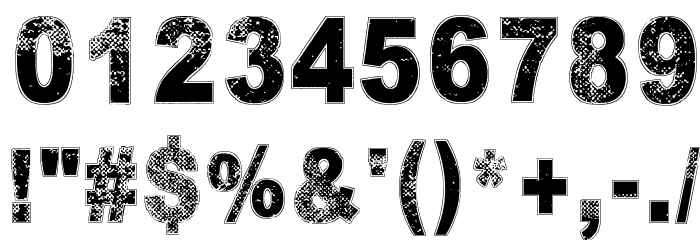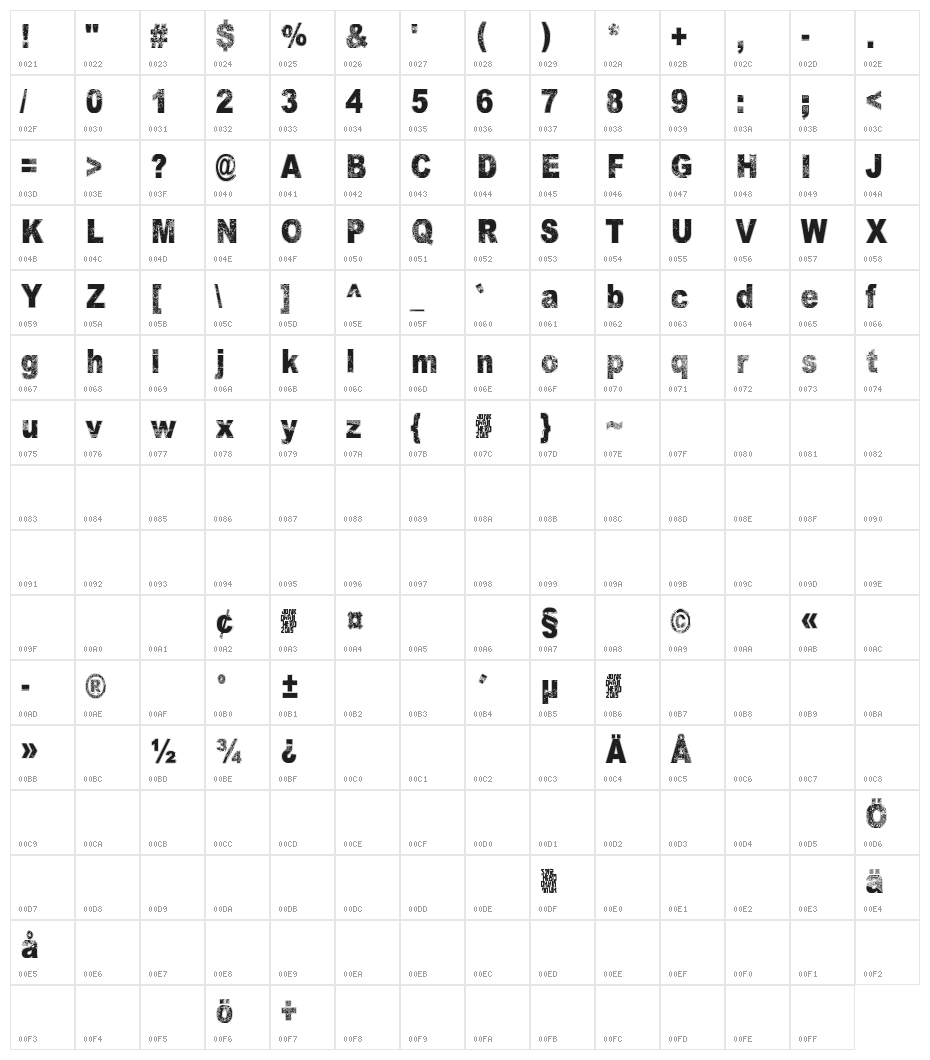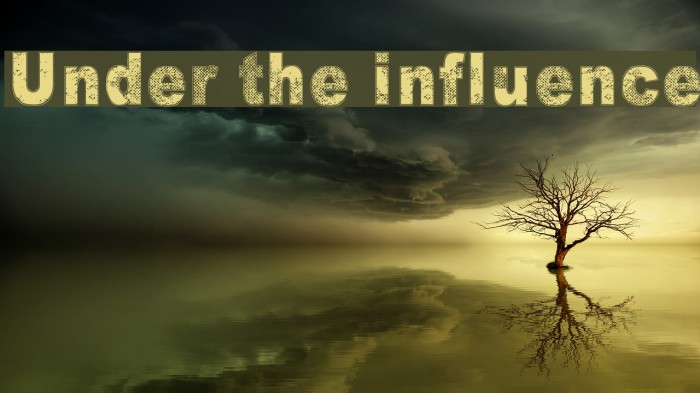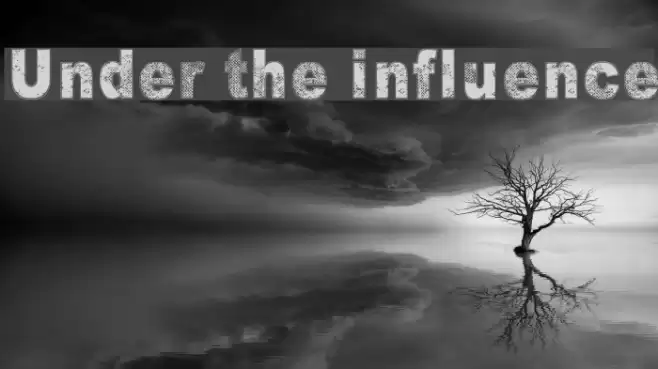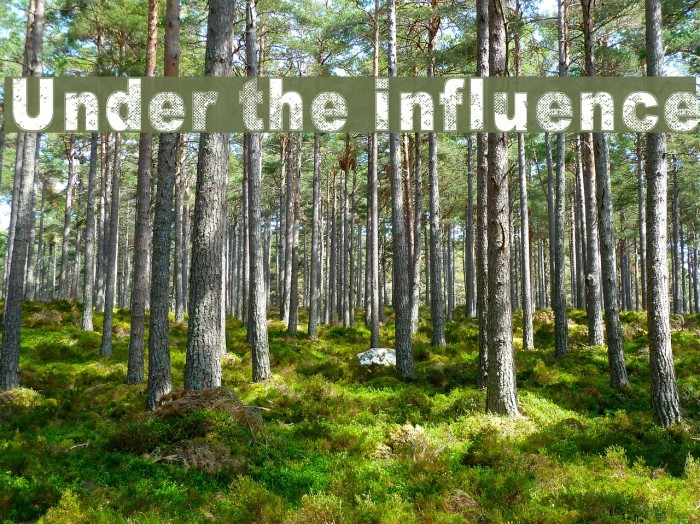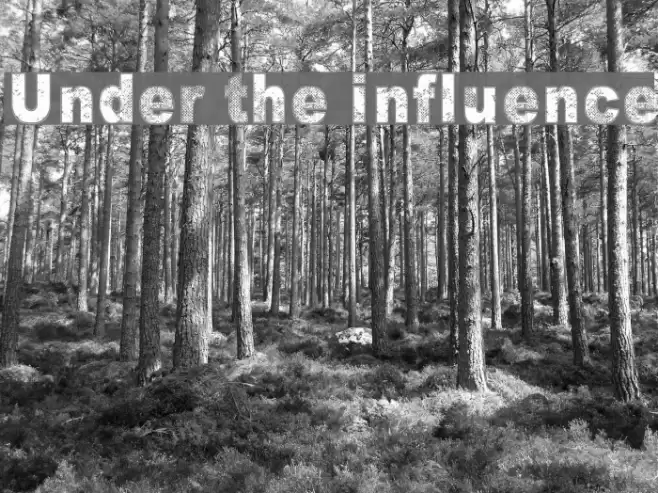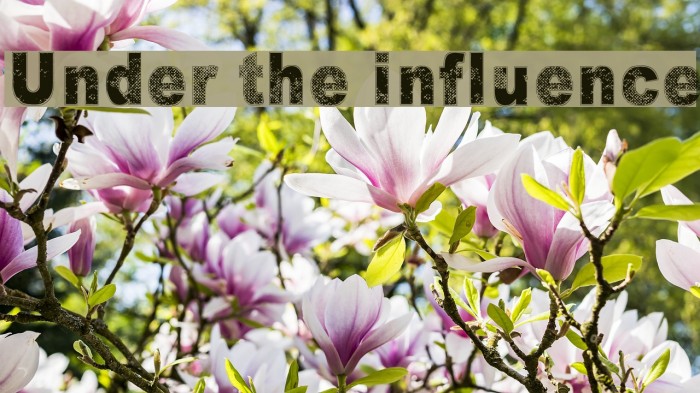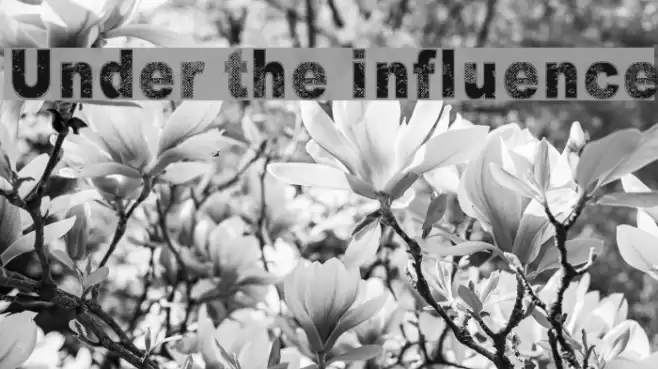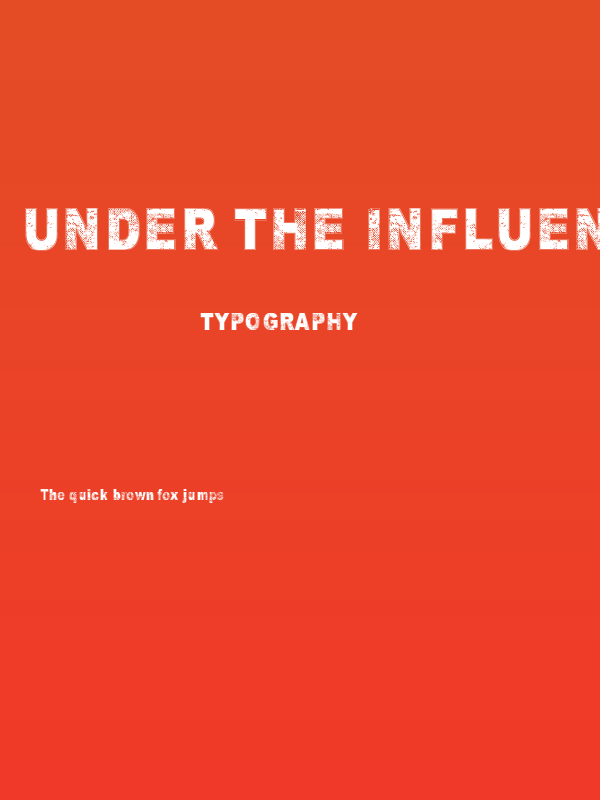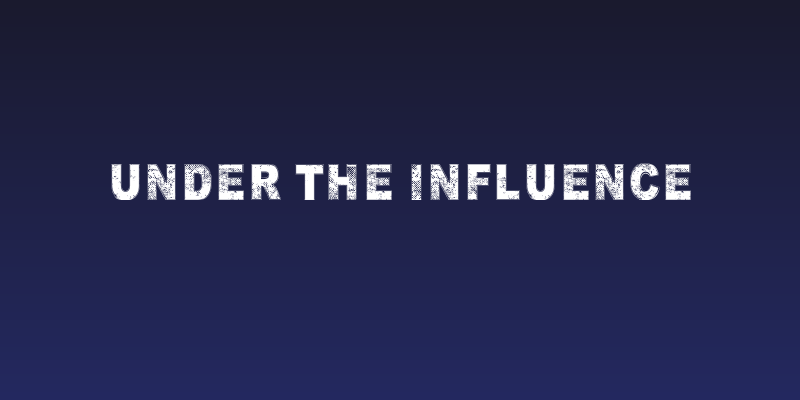
Under the influence Font
Under the influence Description
This font features a bold, distressed style with a textured appearance that gives it a rugged and worn look. The characters are uppercase and lowercase with a consistent thickness, yet the distressed effect adds a sense of randomness and uniqueness to each letter. The numbers and special characters follow the same design, maintaining the cohesive aesthetic. This font is ideal for projects that require a vintage or grunge feel, such as posters, album covers, or branding for edgy products. The boldness of the font ensures it stands out, while the distressed texture adds depth and character.
| Proposed Projects | Ideal for vintage posters, album covers, and edgy branding. |